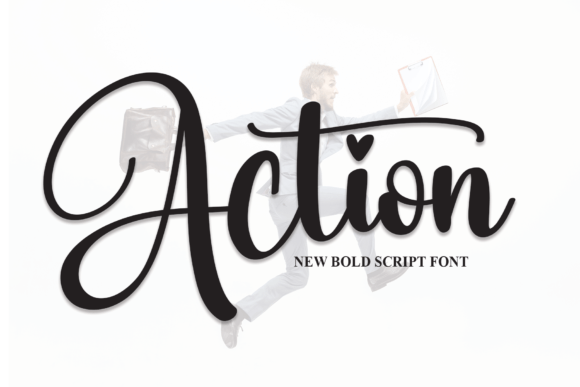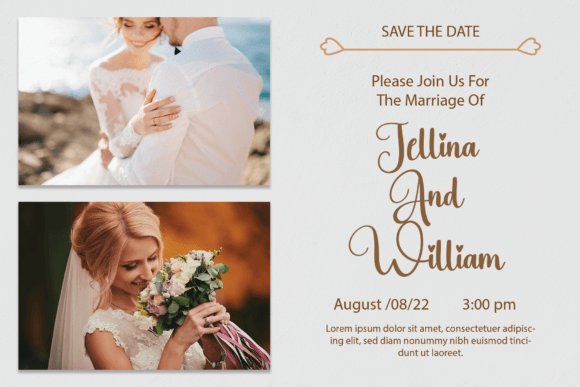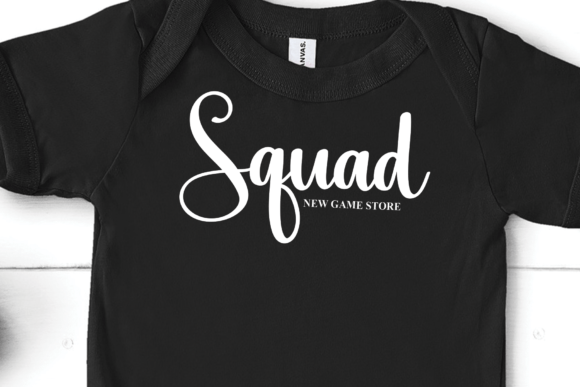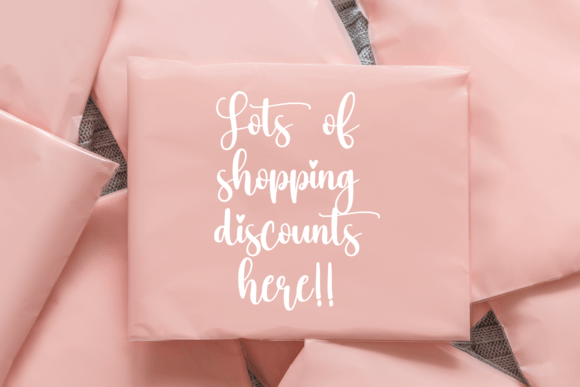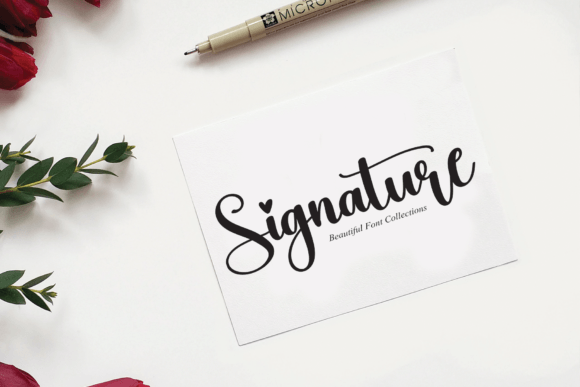
About Action Font
“Action” is a stylish handwritten font that exudes a contemporary atmosphere and impeccable form. Inspired by timeless classic calligraphy, this font strikes a balance between elegance and modernity, making it a versatile choice to enhance the beauty of your projects.
The contemporary vibe of “Action” is immediately apparent in its design, reflecting a modern aesthetic that is well-suited for a wide range of creative applications. The handwritten style adds a personal touch, making it adaptable to both formal and casual contexts.
Impeccable form is a key feature of “Action,” ensuring that each character is meticulously crafted to contribute to the overall visual appeal. The font’s design is thoughtful and deliberate, allowing it to stand out as a refined and well-executed typeface.
The varied and balanced nature of the font enhances its versatility. Whether used for titles, headings, or body text, “Action” adapts seamlessly to different design elements. Its ability to add a touch of sophistication while maintaining a contemporary feel makes it suitable for diverse projects, from branding to promotional materials.
In summary, “Action” is more than just a font; it’s a stylish design tool crafted to elevate the beauty of your projects. With a blend of contemporary aesthetics and timeless calligraphic inspiration, “Action” becomes a valuable asset in creating designs that are both modern and refined.